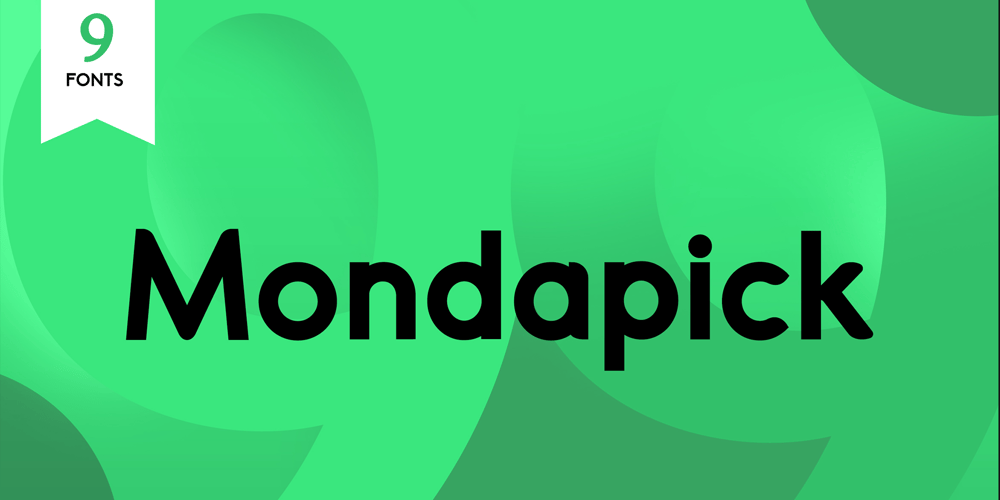
Mondapick
Mondapick font
Mondapick Font Family was designed by Hero and published by UICreative. Mondapick contains 9 styles and family package options. Introducing of our new product the name is Mondapick Sans Serif Font Family comes with 9 different weights. Modern Sans Serif font that feels beautiful classy, elegant, and modern .This font is perfect suited for a wide variety of projects, as to signature, stationery, logo, wedding, typography quotes, magazine or book cover, website header, clothing, branding, packaging design and more. Also for fashion related branding or editorial design and displays both masculine and feminine qualities.